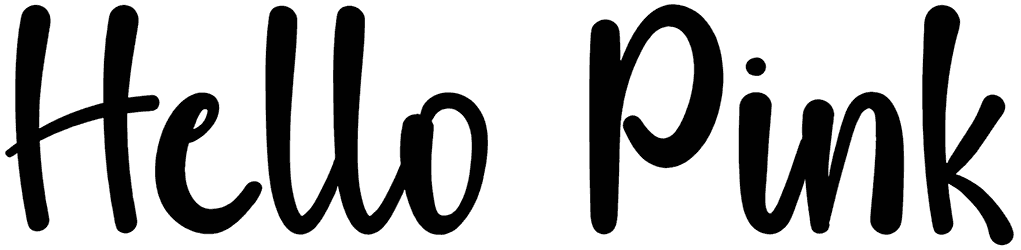
Hello Pink Font
Hello Pink is a beautiful handwritten font with a simple display and smooth lines. Its realistic touch will help to take your work to a new level of design.
It can be used for different project types like comic books, product packaging, quotes, social media, T-shirt prints, etc. When your font is versatile, there is no worry about losing creative ideas in many daily thoughts.